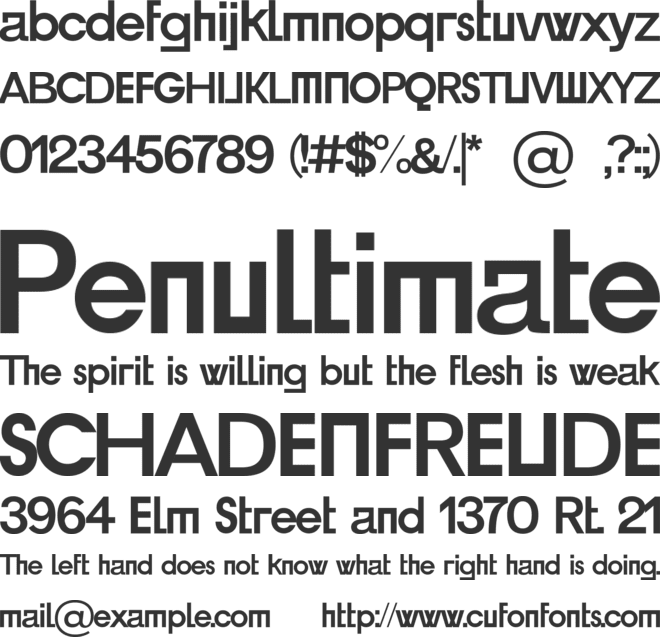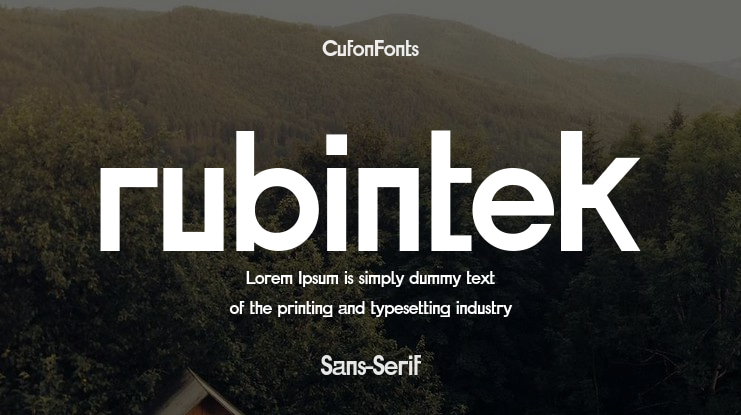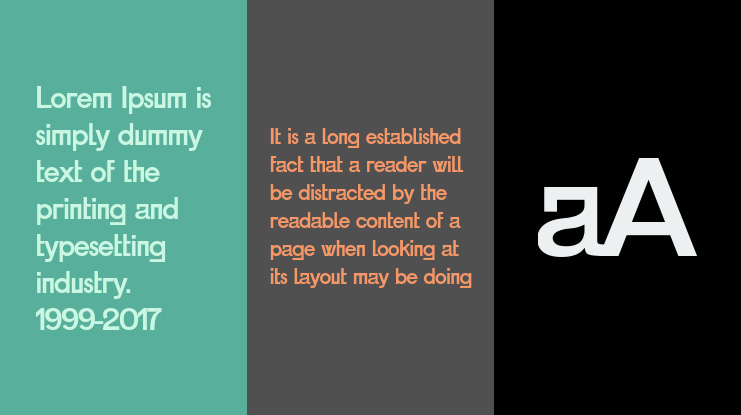
rubintek Font Family
🎨 Font Name: Rubintek by Minimalist Art Studio
🎨 Font description: Rubintek is a bold geometric sans with multilingual support—ideal for tech branding, minimalist packaging, and editorial design.